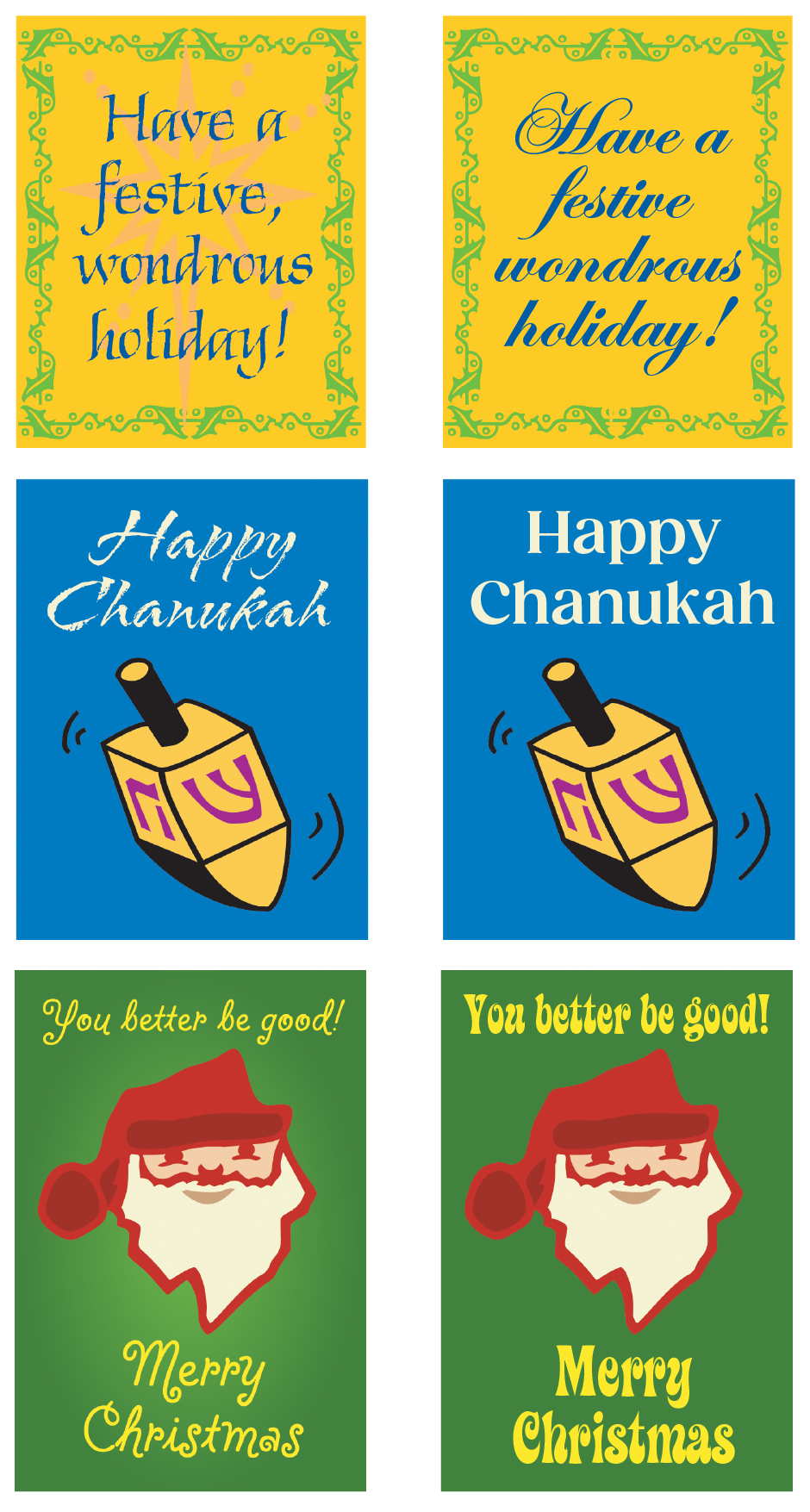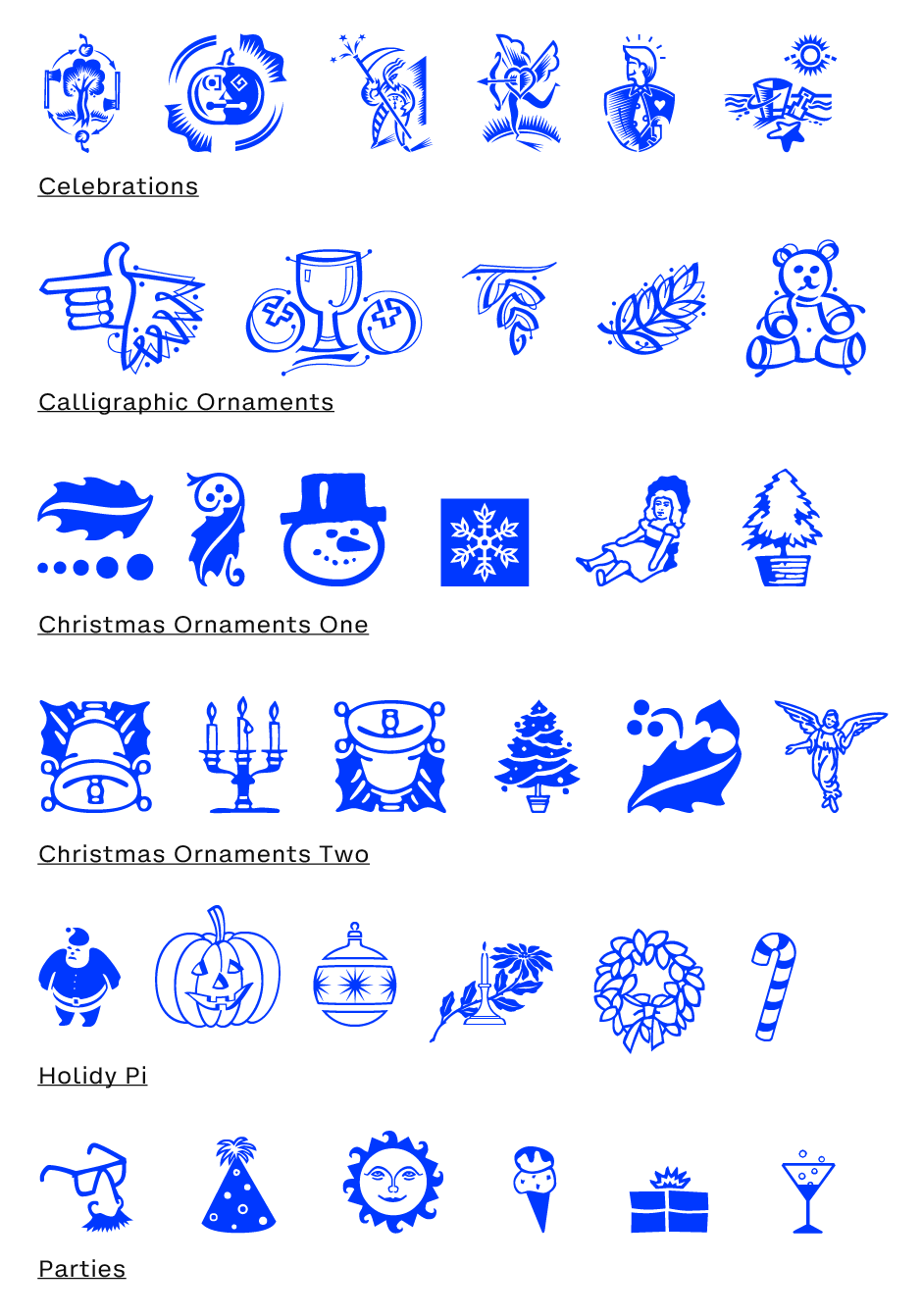
Holiday cards, party invitations, one-of-a-kind gifts, thank-you notes – the holiday season offers endless chances to create special graphic projects. Seasonally themed image fonts are a great way to personalize your designs and infuse them with festive cheer.
Few gifts are more appreciated than something made by hand. If you want to impress family and friends – and express yourself without a boss or design director – this season is the perfect time to unleash your creativity on bespoke projects.
You don’t need to be an illustrator or artist to capture the holiday spirit. Many image fonts include seasonal graphics like snowflakes, snowmen, leaves, ornaments, religious symbols, and festive foods and drinks. Decorative flourishes can also add that extra touch.
Use seasonal image fonts for:
- Holiday greeting cards
- Invitations
- Email and web greetings
- Personalized gifts
- Party decorations
- Labels and inserts for photo albums, videos, TikTok
When creating holiday graphics, there’s one rule: have fun and enjoy the process!